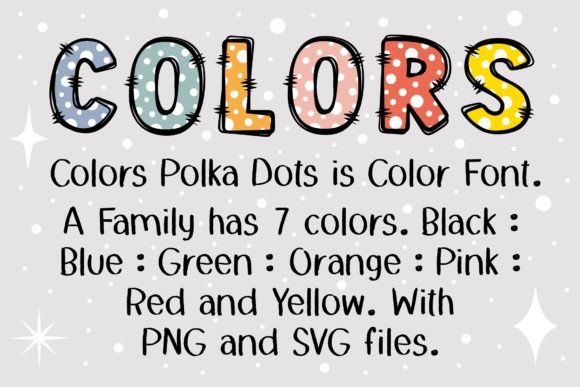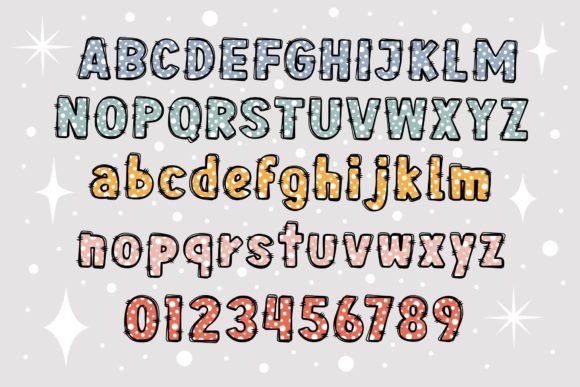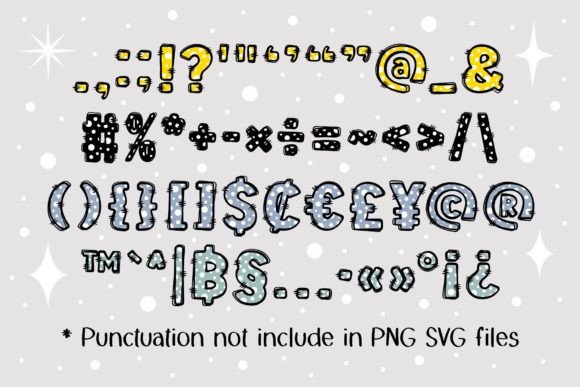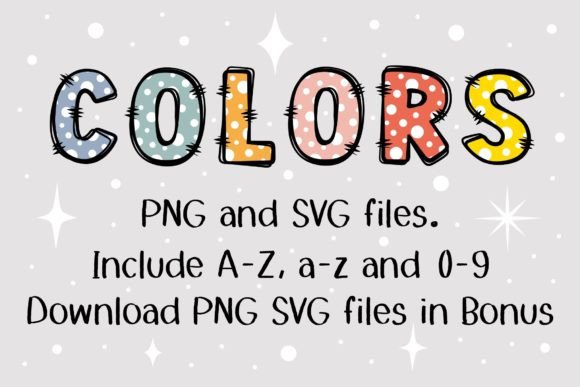
Introduction to Colors Polka Dots Font
Colors Polka Dots is a cute colorful font.
This font is the perfect fit for all of your t-shirts, social media, crafty DIY projects, and much more The black version of this font is compatible with Cricut Design Space and other cutting machines.
Key Features of Colors Polka Dots Font
Why Choose Colors Polka Dots Font?
Colors Polka Dots Font offers exceptional quality and versatility, making it a valuable addition to your design toolkit. Whether you’re creating for personal projects or commercial use, Colors Polka Dots Font delivers professional results.